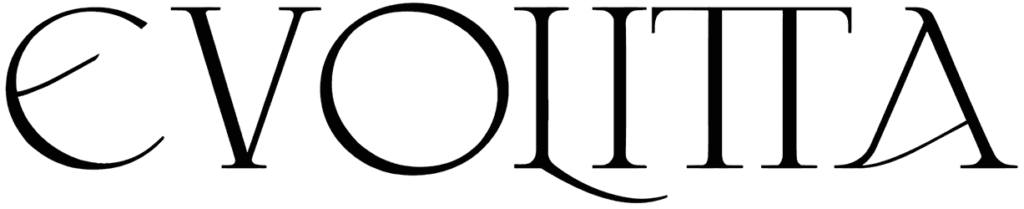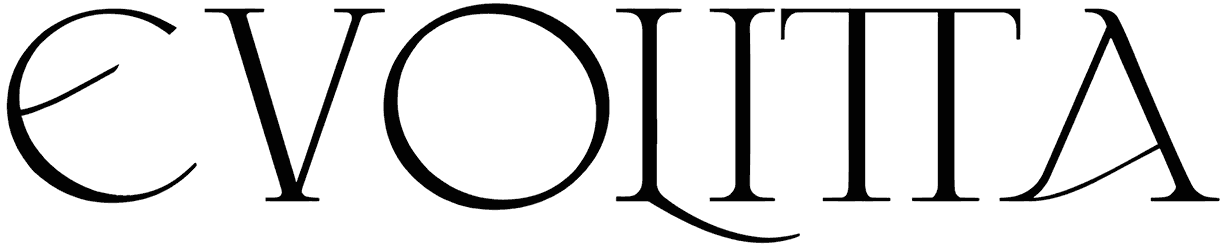
Evolitta Font
Evolitta is a sleek and clean serif font. This luxury font has a soft character, making it the ideal choice for lending an impression of elegance to any undertaking. Its antique aesthetic complements modern decor beautifully. It is ideal for developing designs that reflect an exquisite, sophisticated way of life, such as quotations, logos, professions, and websites, and it was created with such projects in mind.